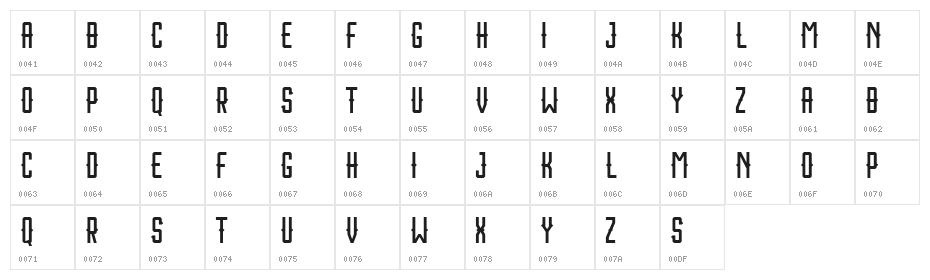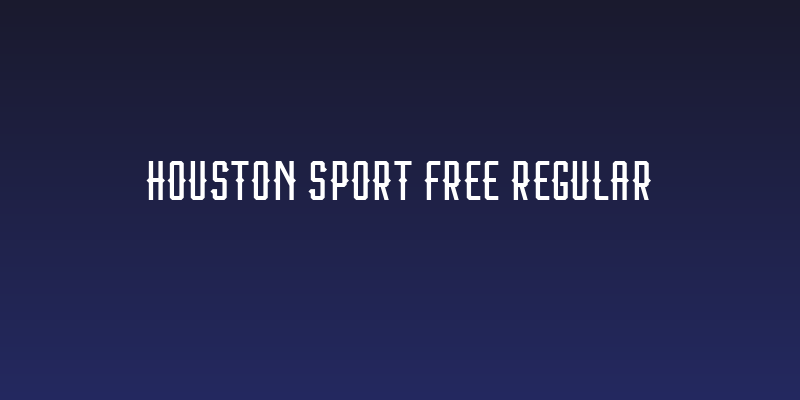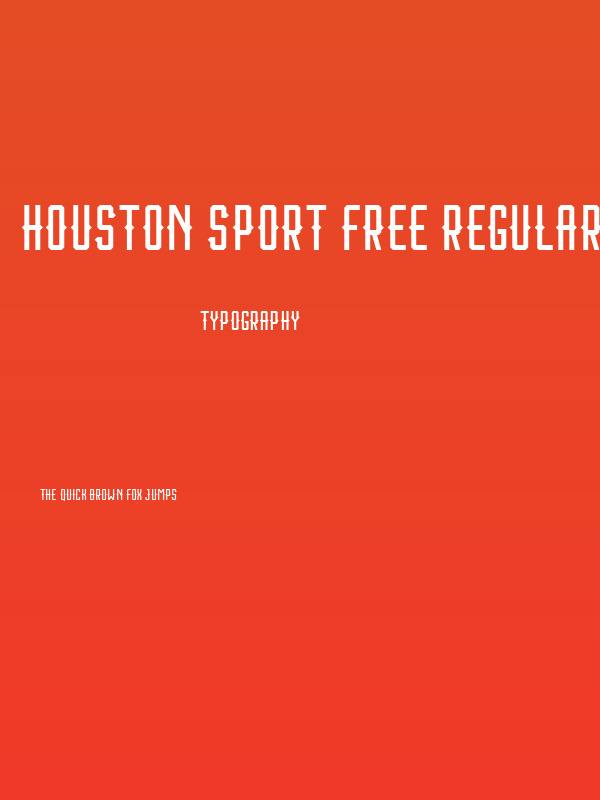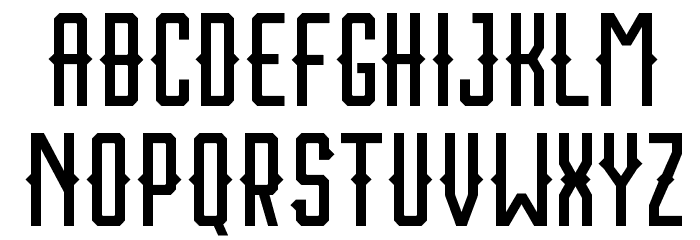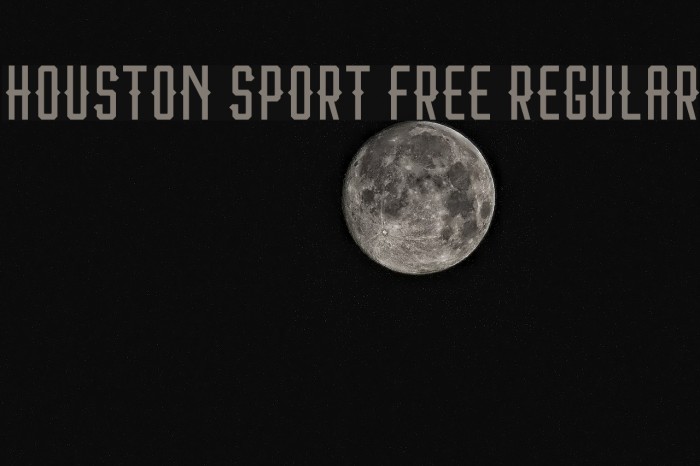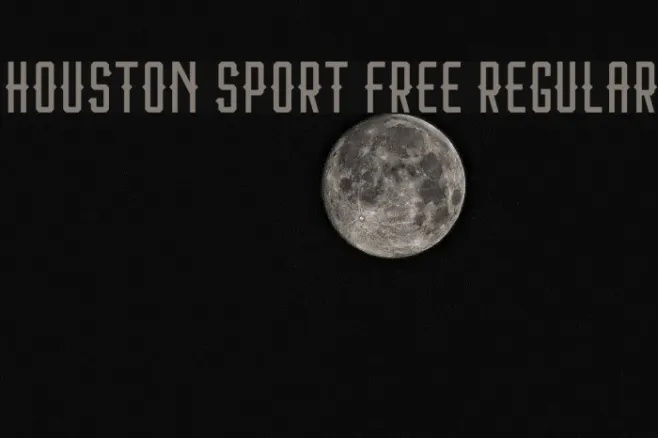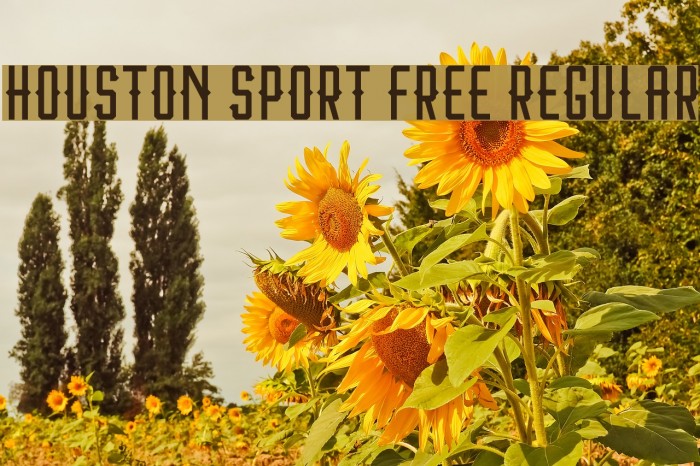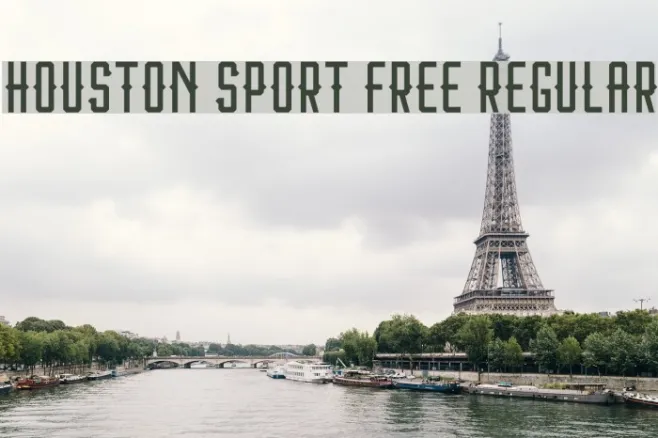
Houston Sport Free Regular Font
Houston Sport Free Regular Description
This font features a bold and geometric design with a strong emphasis on vertical and horizontal lines, creating a structured and athletic appearance. The characters are uniform in height, with sharp angles and a consistent stroke width that conveys a sense of strength and stability. The font's design is reminiscent of sports team logos and jerseys, making it ideal for projects that require a dynamic and energetic feel. The uppercase letters are particularly striking, with their tall and narrow form, while the overall style maintains a modern and clean aesthetic.
| Use Case | Logos, Headlines |
| Proposed Projects | Ideal for sports team branding, athletic event posters, and dynamic logo designs. |